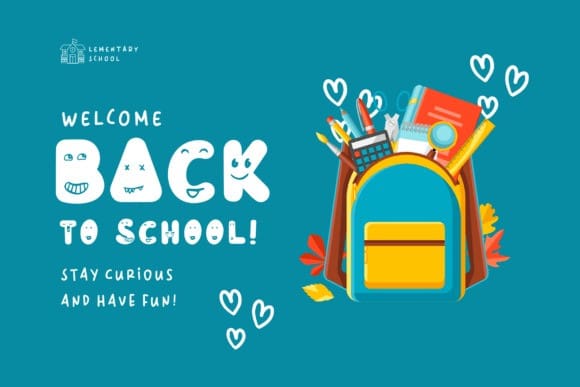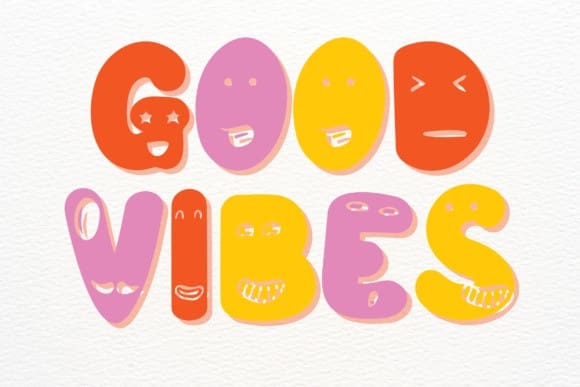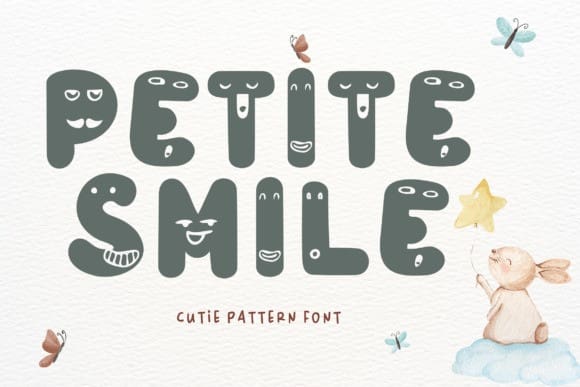
Petite Smile Font
Petite Smile Font is a cute and friendly display font. Its childish and playful character is perfect for creating a wide spectrum of designs. Add it confidently to your projects, and you will love the results.